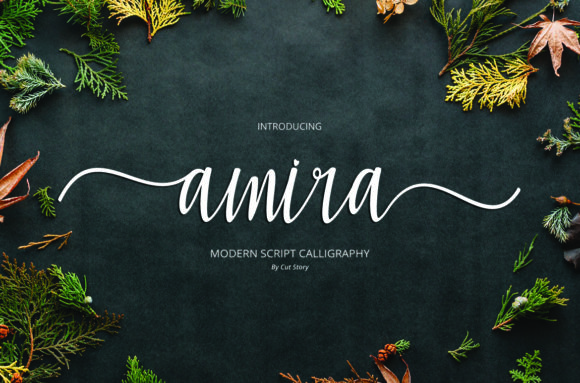
Amira: A Web-Ready Script Typeface for Modern Digital Brands
Last week, I was deep into a hero section redesign for a boutique online store. The client wanted a headline that felt both approachable and premium, something that would soften the clean grid of their product layout. I had already tested a handful of script fonts, but they felt either too rigid or too ornate for a brand built on handmade goods. That is when I dropped Amira into the header. Within seconds, the entire mood of the page shifted. The swashes caught the light of the background image, the ligatures connected the words naturally, and the whole thing read like a handwritten welcome note rather than a digital headline. That moment reminded me why a thoughtful script font still has a place in modern web design.
First Impressions in a Digital Layout
Amira presents itself as a cute and casual handwritten font, but do not let the word cute fool you. When I tested it on a landing page for a coaching website, it carried enough weight to anchor the hero title without feeling flimsy. The friendly curves and subtle swashes gave the headline a human quality that clean sans serif fonts sometimes lack. On a full-width banner with a soft cream background, the font stood out without needing heavy dropshadows or text outlines. It simply performed as a display typeface should, drawing the eye and setting a warm tone for the rest of the page.
On mobile, I was curious about how those gorgeous ligatures would hold up. I opened the same landing page on a phone screen, and the font scaled down nicely. The connecting strokes remained readable, and the overall silhouette stayed intact. That is a critical test for any script font used in web design. If a decorative typeface blurs or breaks at smaller sizes, it loses its purpose. Amira passed that test on the first try.
Where Amira Shines on a Website
After using Amira across several project mockups, I found it works best in places where you want personality to lead the design. Here are the web areas where it truly comes alive:
I tested Amira on a landing page for an online course sales page. The hero headline used Amira, and the body copy used a simple sans serif font. The contrast was immediate. Visitors could scan the headline and feel the personality of the course before they read a single sentence of the body text. That kind of emotional engagement is exactly what a good display font should deliver.
Readability and Responsive Considerations
Handwritten and script fonts often raise concerns about legibility, especially on smaller screens. In my tests, Amira performed well on desktop monitors, tablets, and phones when used at appropriate sizes. I recommend keeping Amira for display purposes only, meaning headlines above 30 pixels, section titles, and short accent phrases. Once a text block gets longer than five or six words, readability drops, and users may struggle to scan the sentence.
For body copy, navigation menus, form labels, and dense product descriptions, I would pair Amira with a clean sans serif font. I used Montserrat as a companion in one project, and the combination felt balanced. The sans serif handled the functional parts of the page while Amira brought the warmth. I also tested it with a simple serif font for a more editorial branding approach, and that worked well too, especially on portfolio sites where the content is more visual than text-heavy.
One thing I always check is how a font performs over image backgrounds. Amira has good contrast against mid-tone and light backgrounds, but on dark or highly saturated images, you may need to add subtle text shadows or overlays to maintain legibility. That is not a flaw of the font itself, rather a standard practice for any display typeface used over photos.
Technical Details for Web Implementation
Before you upload Amira to a live site or client project, go through the font files and documentation carefully. Check whether you have access to webfont formats like WOFF and WOFF2, which are essential for fast loading and cross-browser compatibility. The font includes gorgeous swashes and ligatures, and those need to be enabled in your CSS to appear correctly. If you are using a platform like Webflow, Shopify, or WordPress, you may need to adjust font settings to activate alternate characters.
Multilingual support is another consideration. Amira covers standard Latin characters, which suits most English-language websites, but if your project requires extended character sets or special punctuation, you may need to check the included glyphs beforehand. I found it sufficient for typical North American and Western European web content, but I would double-check if your audience uses accented or non-standard letters frequently.